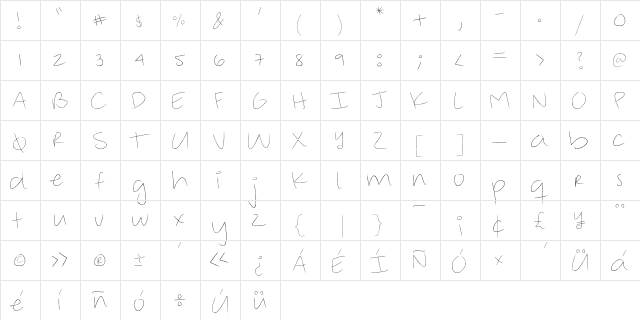
chilly Regular
Design Context for chilly Typeface
chilly is a composed and adaptable typeface that performs quietly and consistently across a wide range of design contexts.
Pro Tip: Use chilly in both headline and body roles to test its range before committing to a single application.